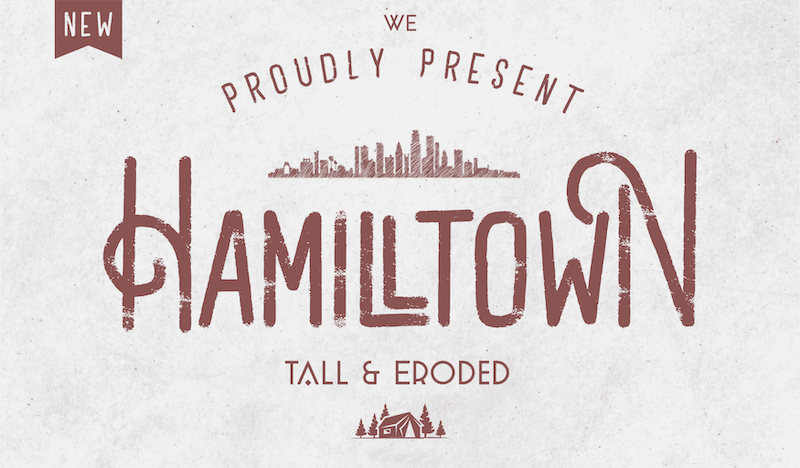
Preview and download Hamilltown Font. Created by Måns Grebäck in Fancy Retro styles with Free for personal use license.
NOTE: This font is for PERSONAL USE ONLY! To purchase a commercial license, visit: http://mn.sg/hamilltown Drawn and created in 2021-2023, this cool eroded typeface has a distinct style and a strong personality. For questions, please visit www.mansgreback.com/faq |